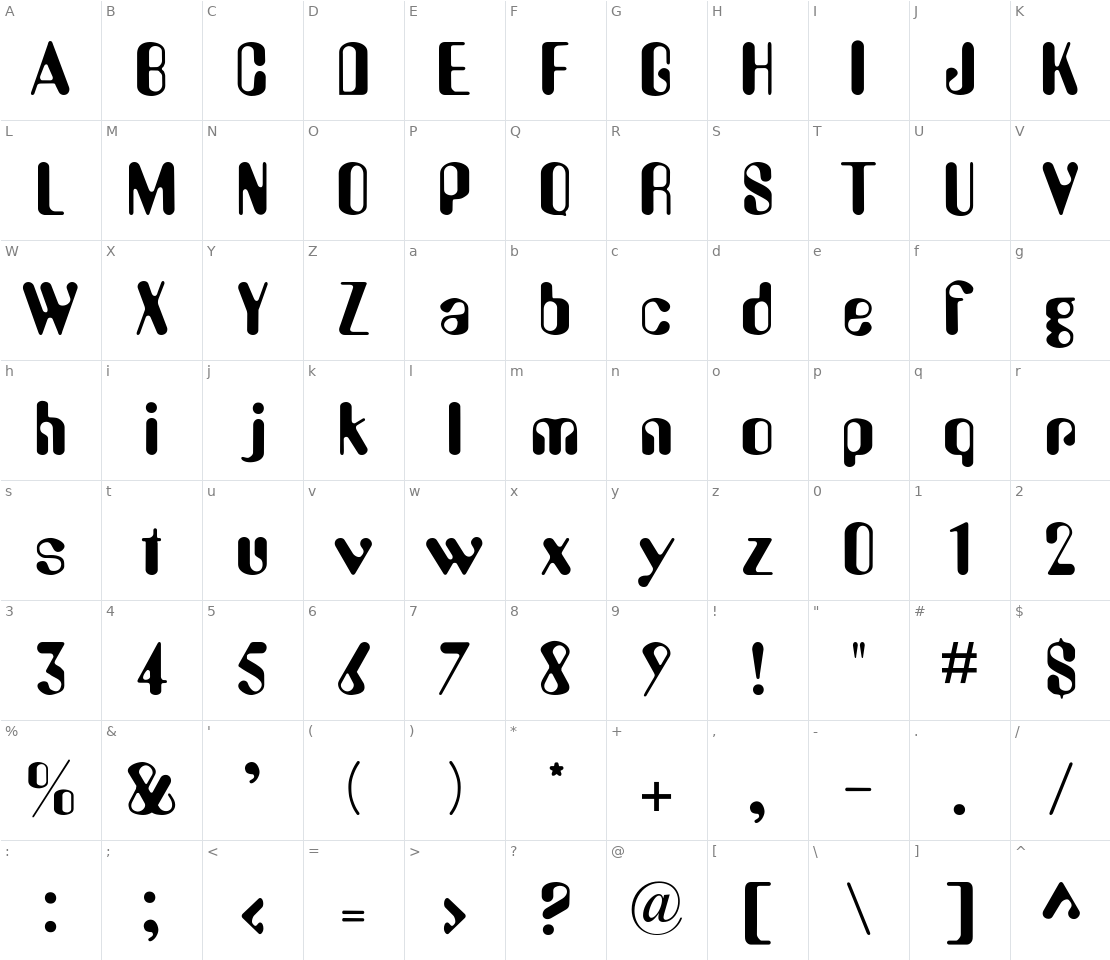
Asimov
Asimov is a bold, heavy geometric display face from Allan Walden's Friendly Fonts, with thick letterforms and a rigid structure that give it a distinctly sci-fi feel. The name fits: there's something about its dense, mechanical shapes that recalls mid-century visions of the future, clinical and confident. Built for headlines, posters, and title cards where you want something that reads as both modern and monumental.